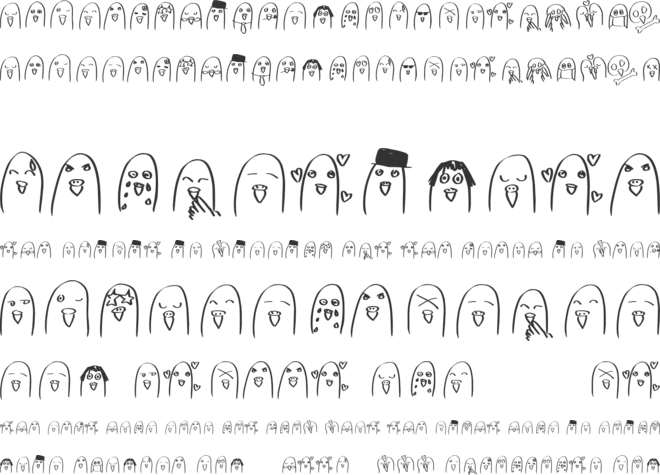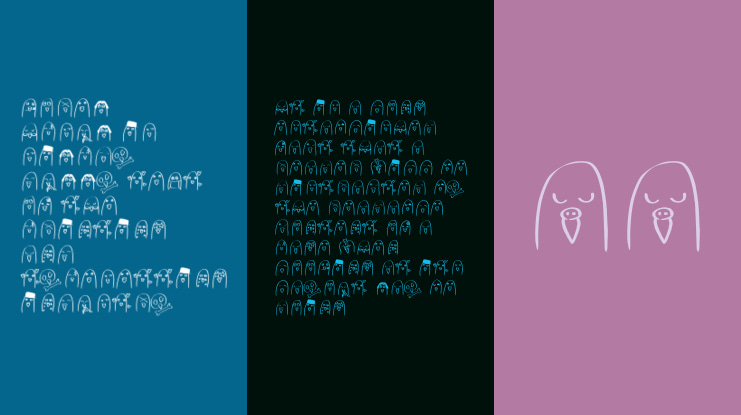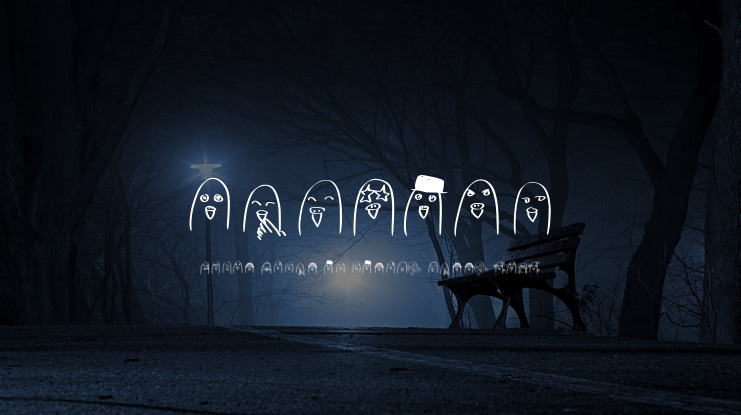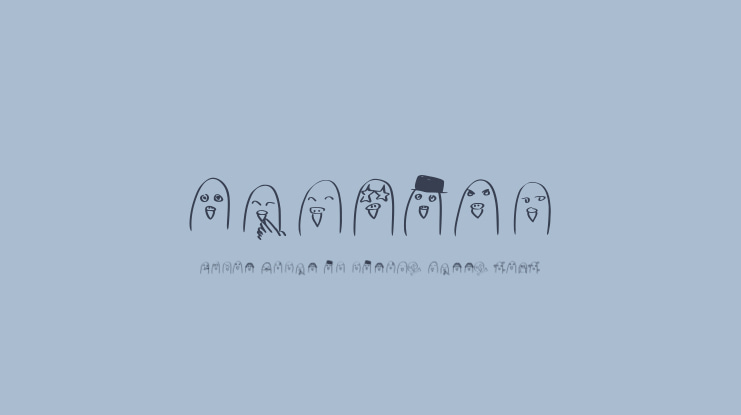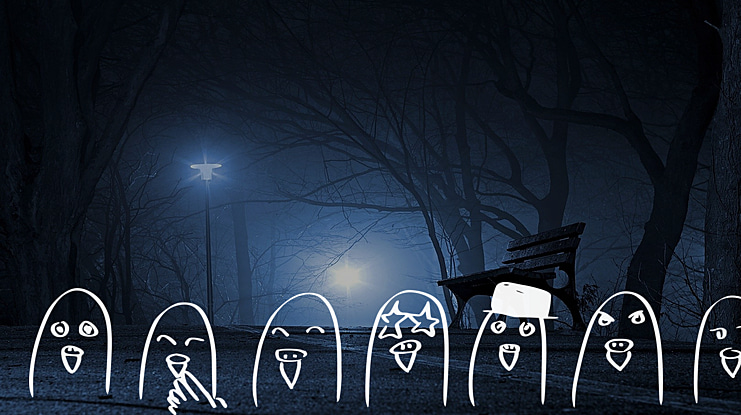
Budgies Font
THE DINGBAT I am a bird person, and what better way to celebrate the crazy little creatures that we called budgies than by making an equally crazy dingbat font with a hint of some of my favorite emojis.